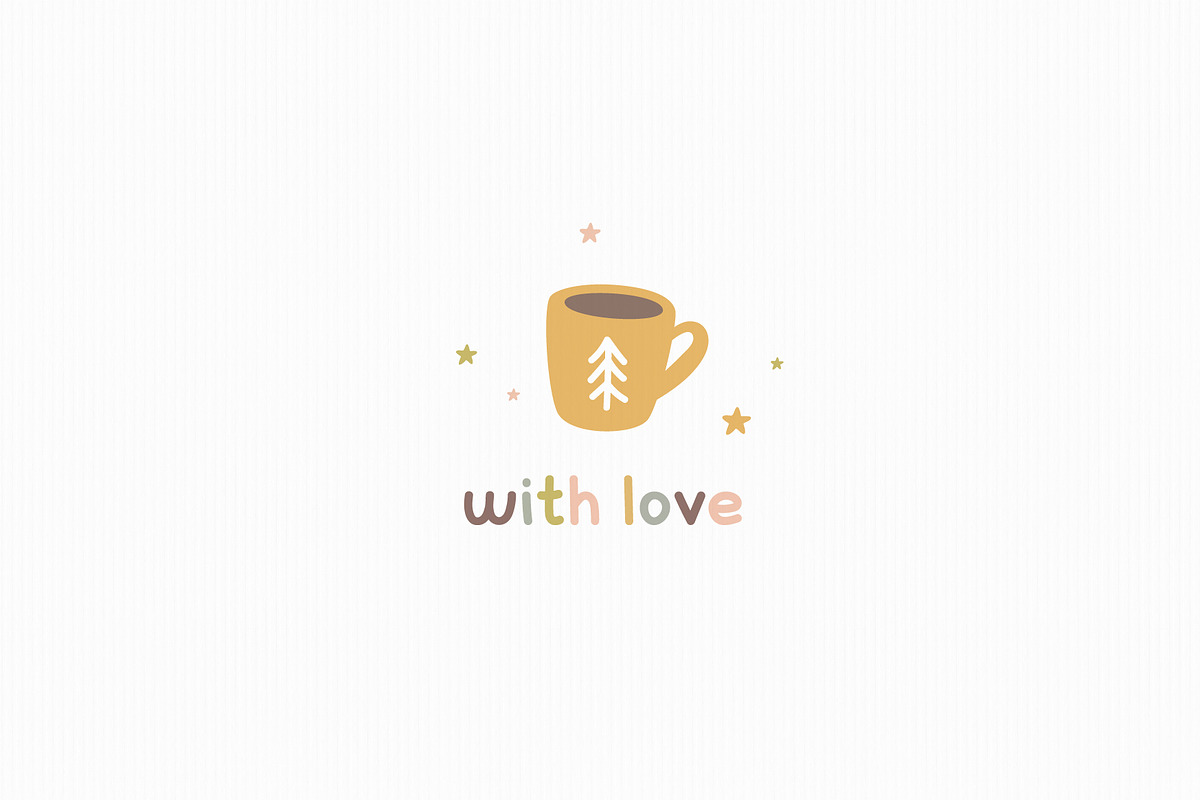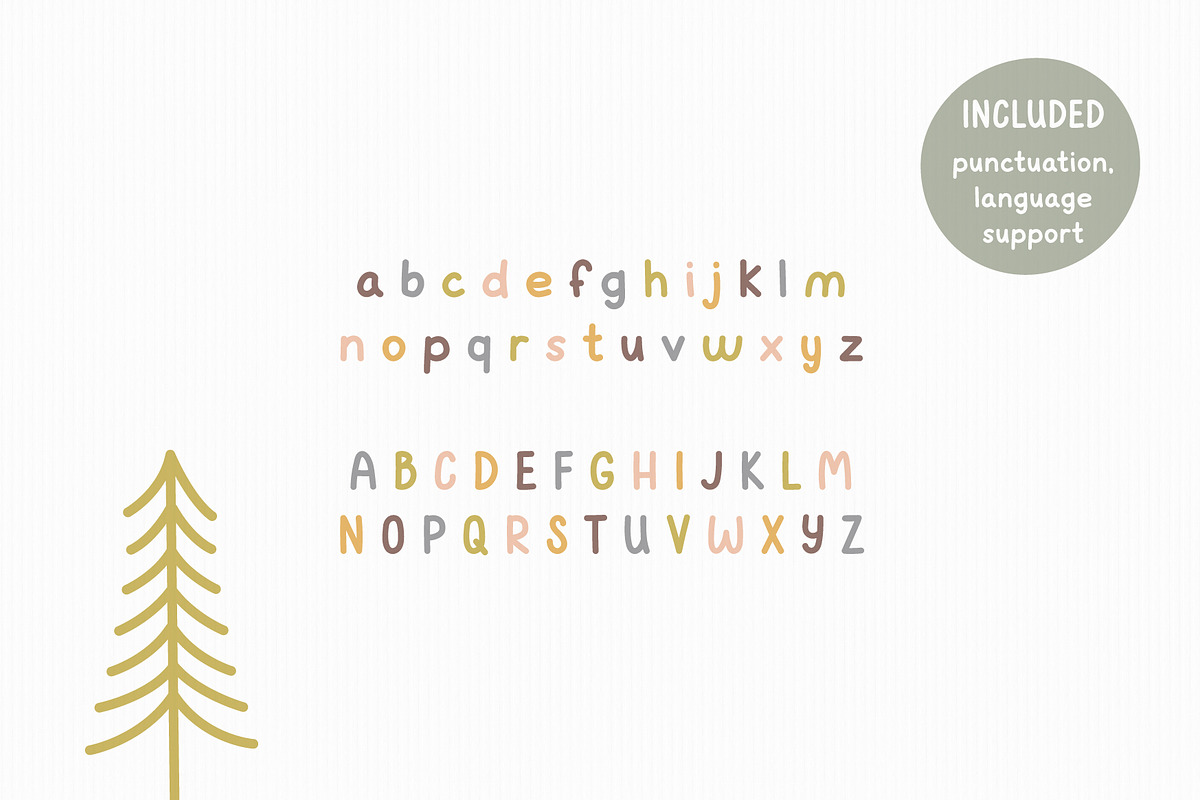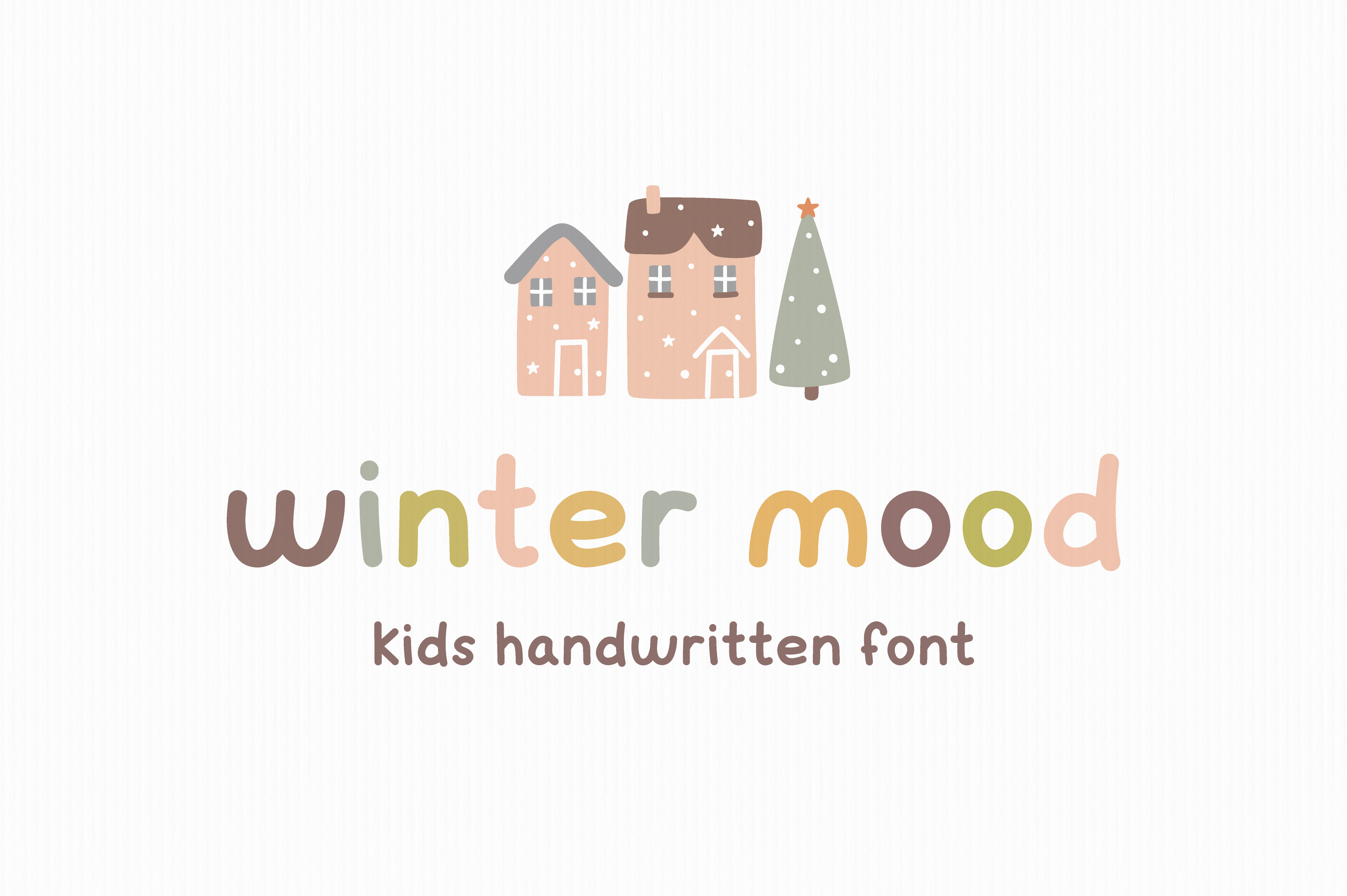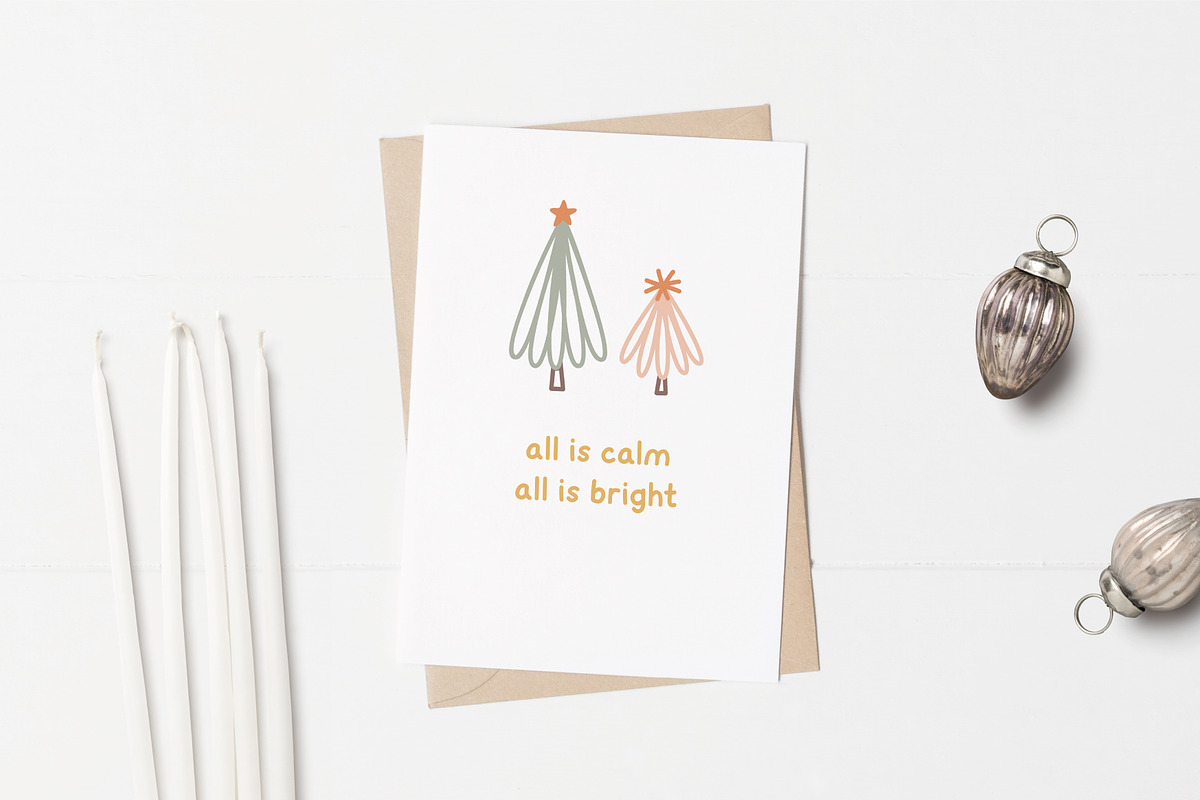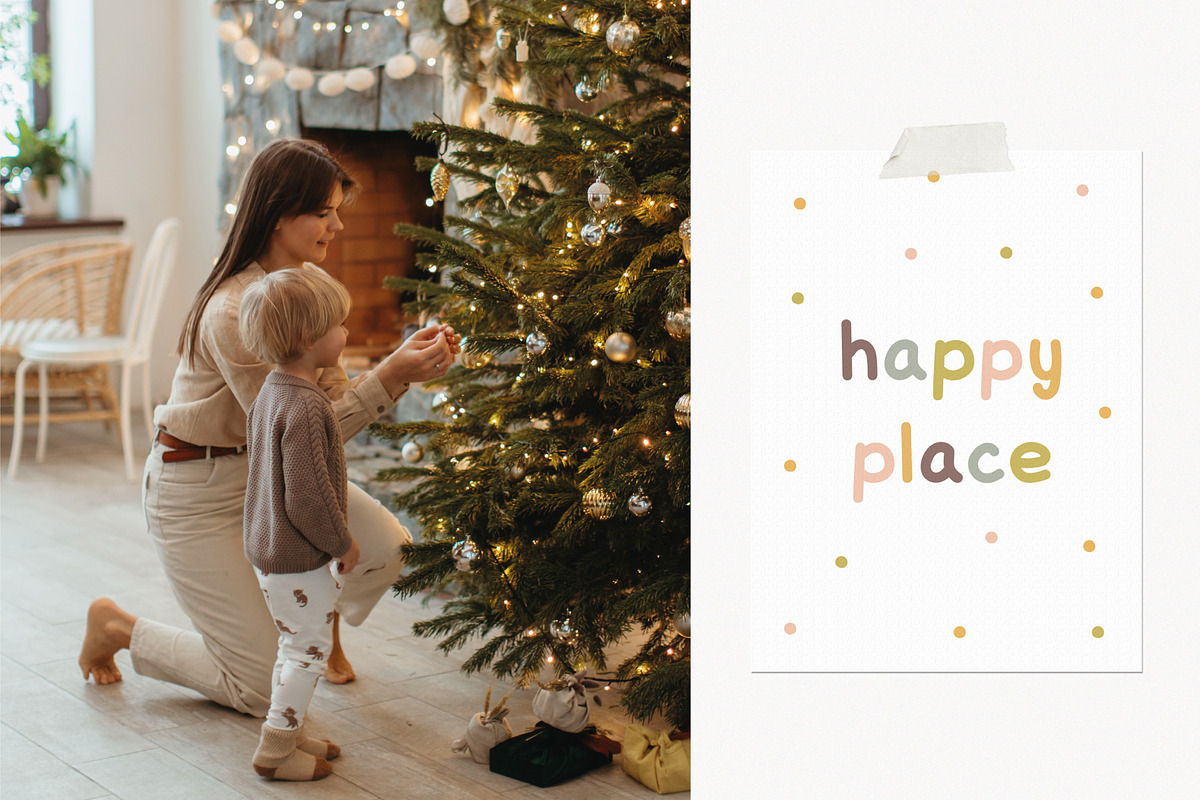
Winter mood | Kids font
Winter mood - kids handwritten font, ready to make your design looks great and fun! :) Use for quotes, greeting cards, invitations, posters, business cards, presentations and more!